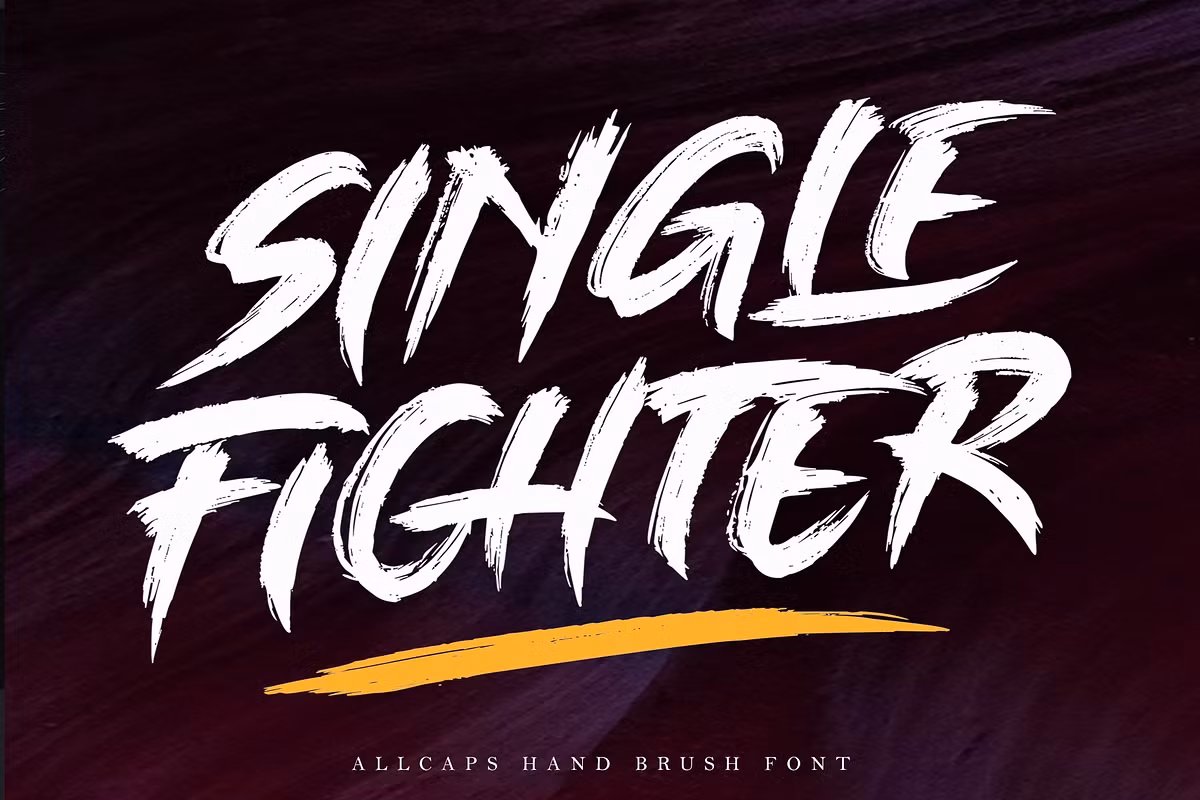
Single Fighter / Brush Font Free Download is a fierce and energetic typeface crafted with bold brush strokes and raw power. Perfect for sports branding, action movie titles, gym logos, and streetwear design, this font commands attention with its aggressive style and rugged texture.
Each letter in Single Fighter is designed to look hand-painted, adding authenticity and intensity to your message. It’s ideal for projects that need to feel strong, fast, and full of motion—whether in print or digital media.